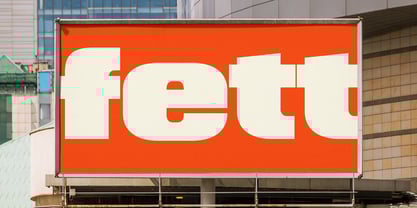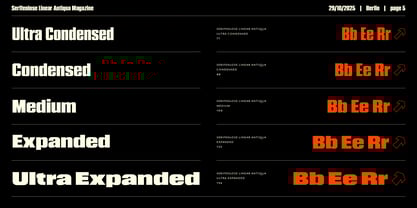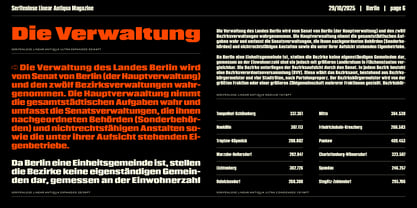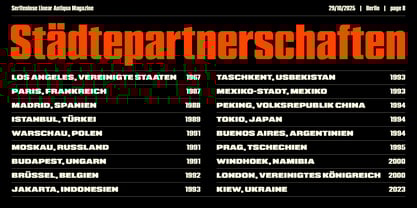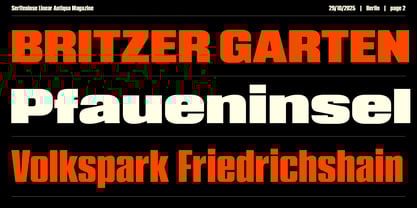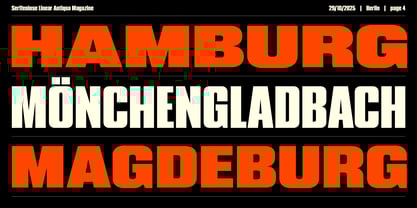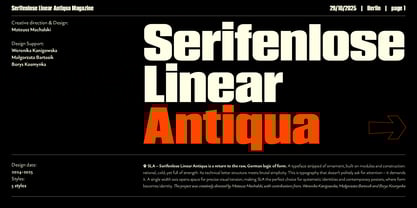
Serifenlose Linear Antiqua
by Machalski
The Serifenlose Linear Antiqua Font Family was designed by Mateusz Machalski and published by Machalski. Serifenlose Linear Antiqua contains 5 styles and family package options.
SLA – Serifenlose Linear Antiqua is a return to the raw, German logic of form. A typeface stripped of ornament, built on modules and construction: rational, cold, yet full of strength. Its technical letter structure meets brutal simplicity. This is typography that doesn’t politely ask for attention – it demands it. A single width axis opens space for precise visual tension, making SLA the perfect choice for systematic identities and contemporary posters, where form becomes identity. The project was creatively directed by Mateusz Machalski, with contributions from, Weronika Kanigowska, Małgorzata Bartosik and Borys Kosmynka
About Machalski
Dr hab. Mateusz Machalski, Associate Professor (b. 1989) – Vice-Rector for Artistic Affairs at the Academy of Fine Arts in Warsaw. Designer, typographer, lecturer and researcher specializing in visual communication and graphic design. He graduated with Rector’s Honours from the Faculty of Graphic Arts at the Academy of Fine Arts in Warsaw (2009–2014), where he currently teaches at the Multimedia Artistic Creation Studio. Named Designer of the Year 2019 at the Polish Graphic Awards, he has been repeatedly awarded in national and international competitions, including KTR, Ascender 2018 – Type Directors Club New York, MUSTHAVE, The DieLine, Red Dot Design, The Best of Design 2018 – Klub Twórców Reklamy, and Animator 2020 – DESIGN ALIVE. He is a five-time recipient of the Polish Ministry of Culture’s scholarship, a laureate of the Ministry of Science and Higher Education’s scholarship for outstanding young researchers, and of the “Young Poland” programme by the National Centre for Culture. He was awarded the Centennial of Regained Independence Medal by the President of Poland. He is a curator and member of the programme board of the International Poster Biennale in Warsaw, and Art Director of the magazines newonce paper and Warsawholic. He has created more than 80 typeface families – including numerous corporate and multi-script designs – and over 200 visual identities for companies, institutions and cultural events. His fonts are distributed through platforms such as Google Fonts, Adobe and Monotype, and his clients include leading Polish and global brands. He has led teams digitizing key works of Polish typography, including “Półtawski Nowy”, “BRYGADA 1918” (launched at the Presidential Palace), and carried out the long-term “Bona Nova” project together with Andrzej Heidrich – the designer of Polish banknotes. He co-created Typoteka – the first Polish index of typography (1474–2024). Co-founder of the first Polish type foundry – Capitalics. He is also the author of numerous texts, articles and exhibitions on graphic design and visual culture, as well as the “Creative Typography” course published by Design Practice. He conducts research projects, workshops and lectures at universities and conferences in Poland and abroad.